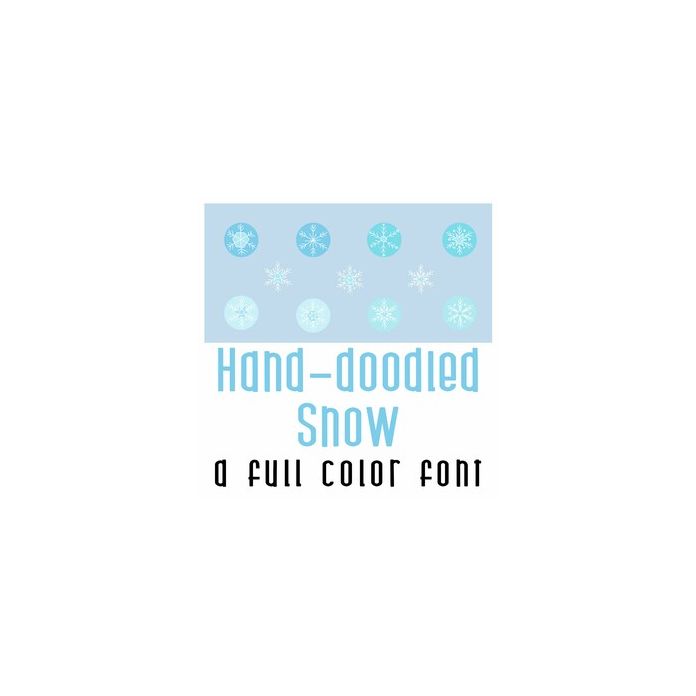
This adorable full-color doodlebat font features 52 hand-doodled snow flakes. Perfect for cards, crafts, gifts, decor, scrapbook pages, planner stickers, and more! A-Z is snowflake with circle of blue behind, a-z is just the snowflake no background, but snowflake is white.